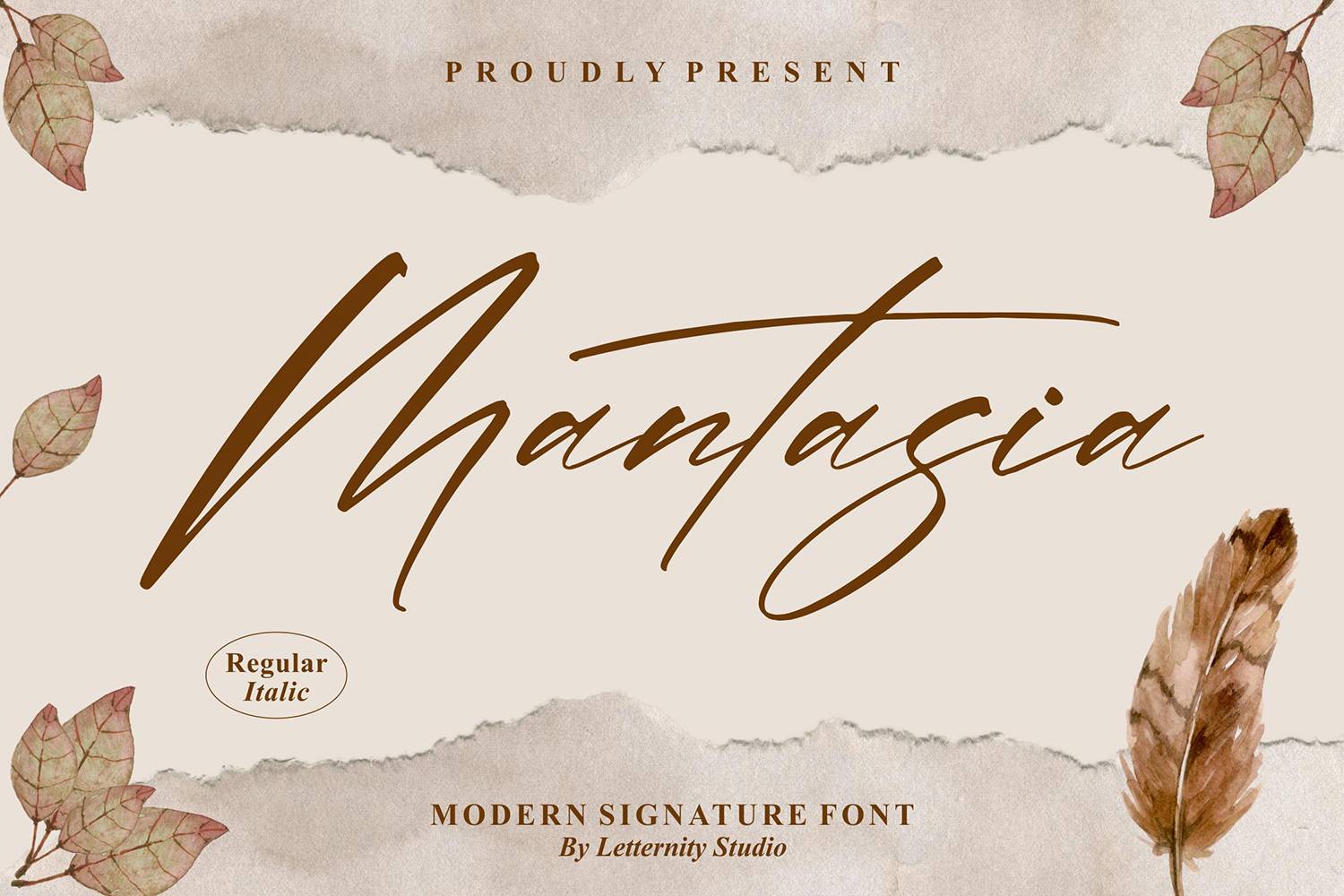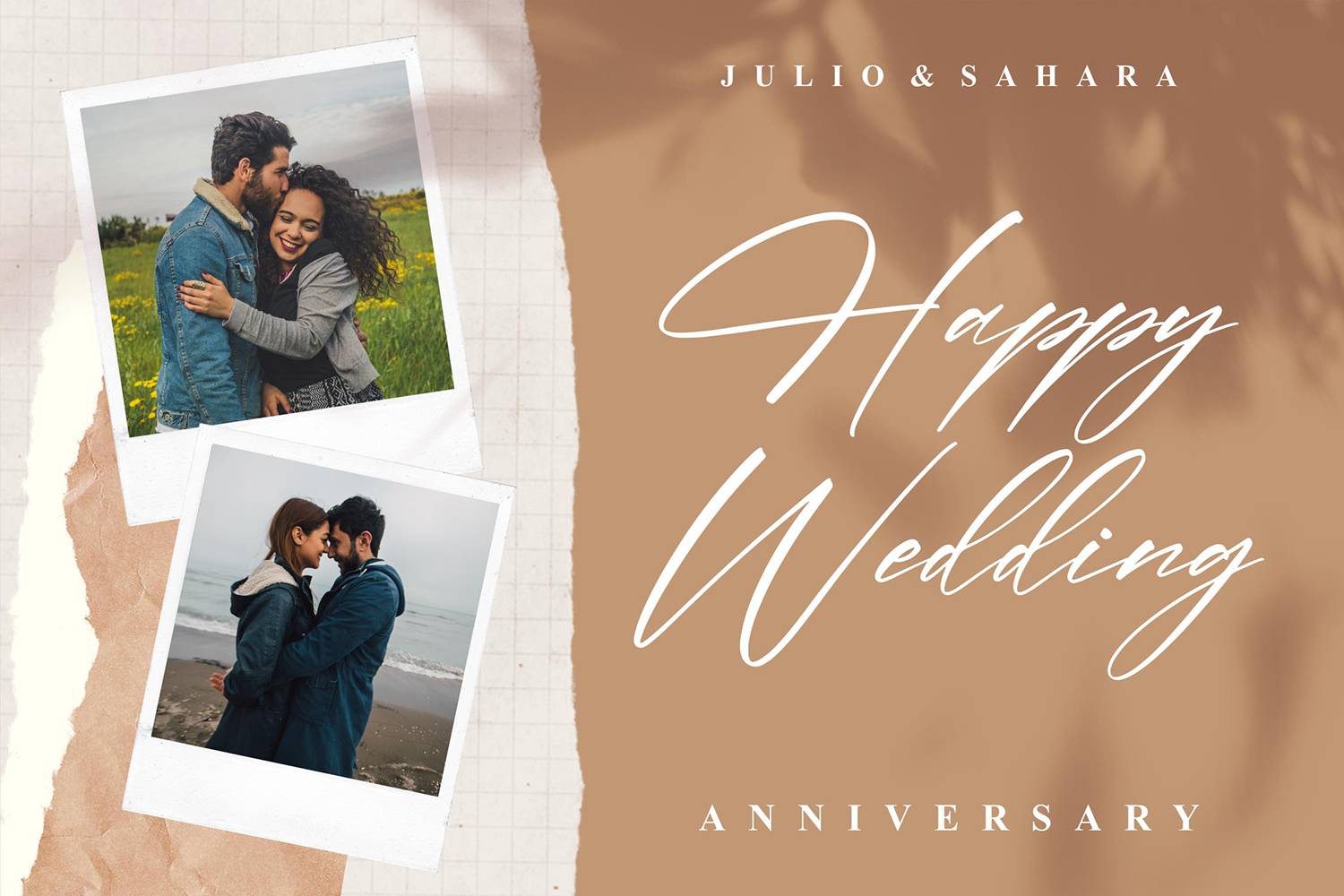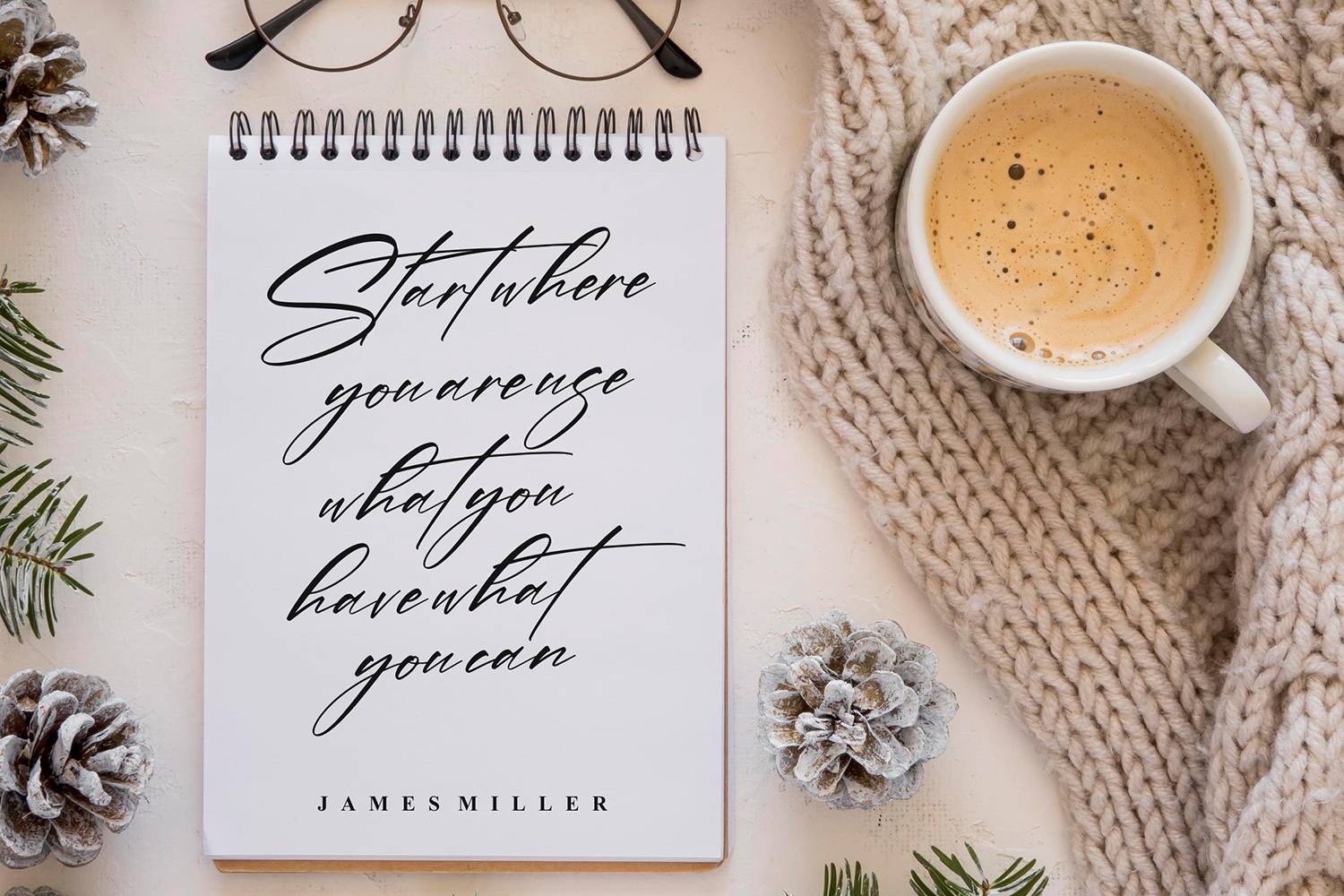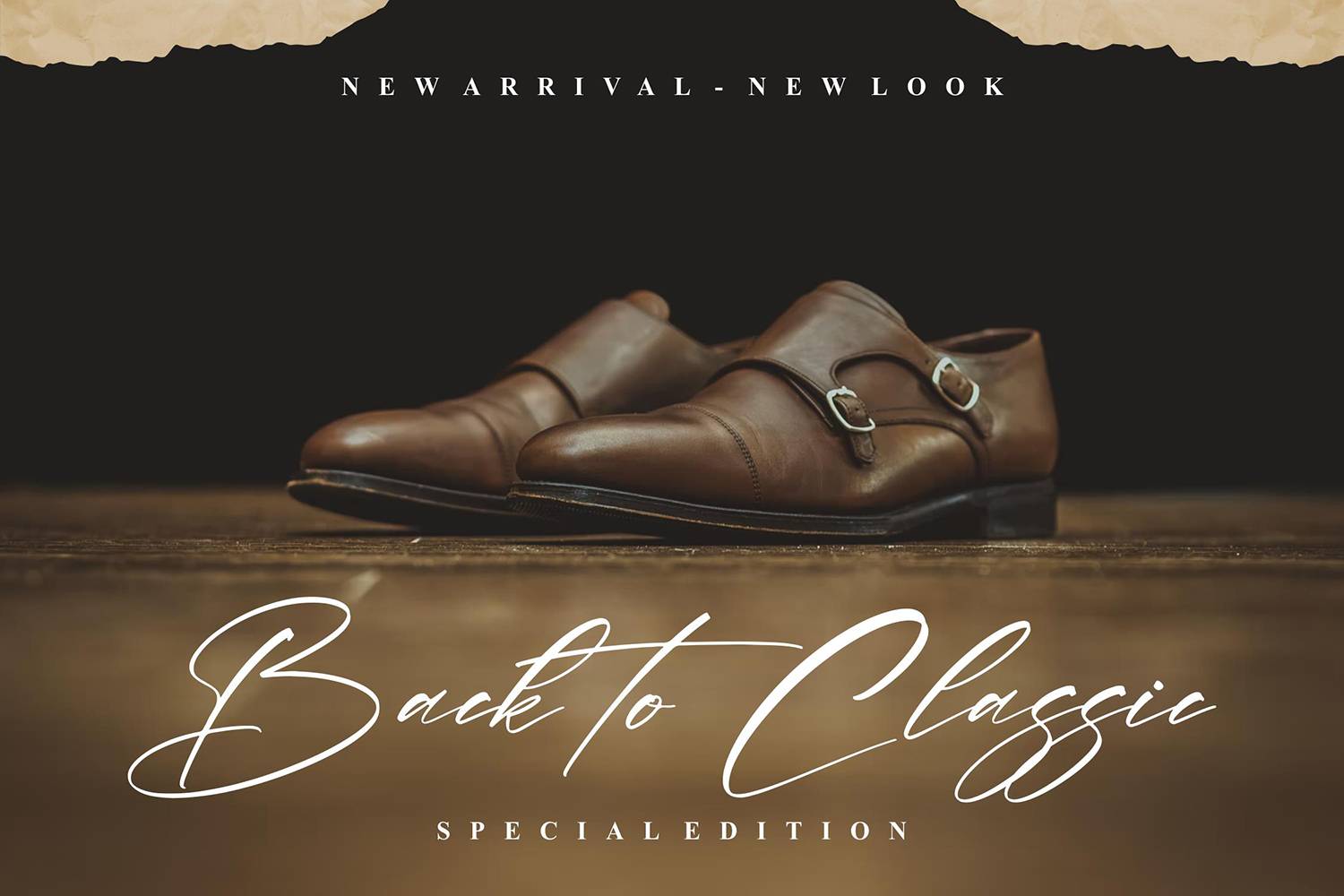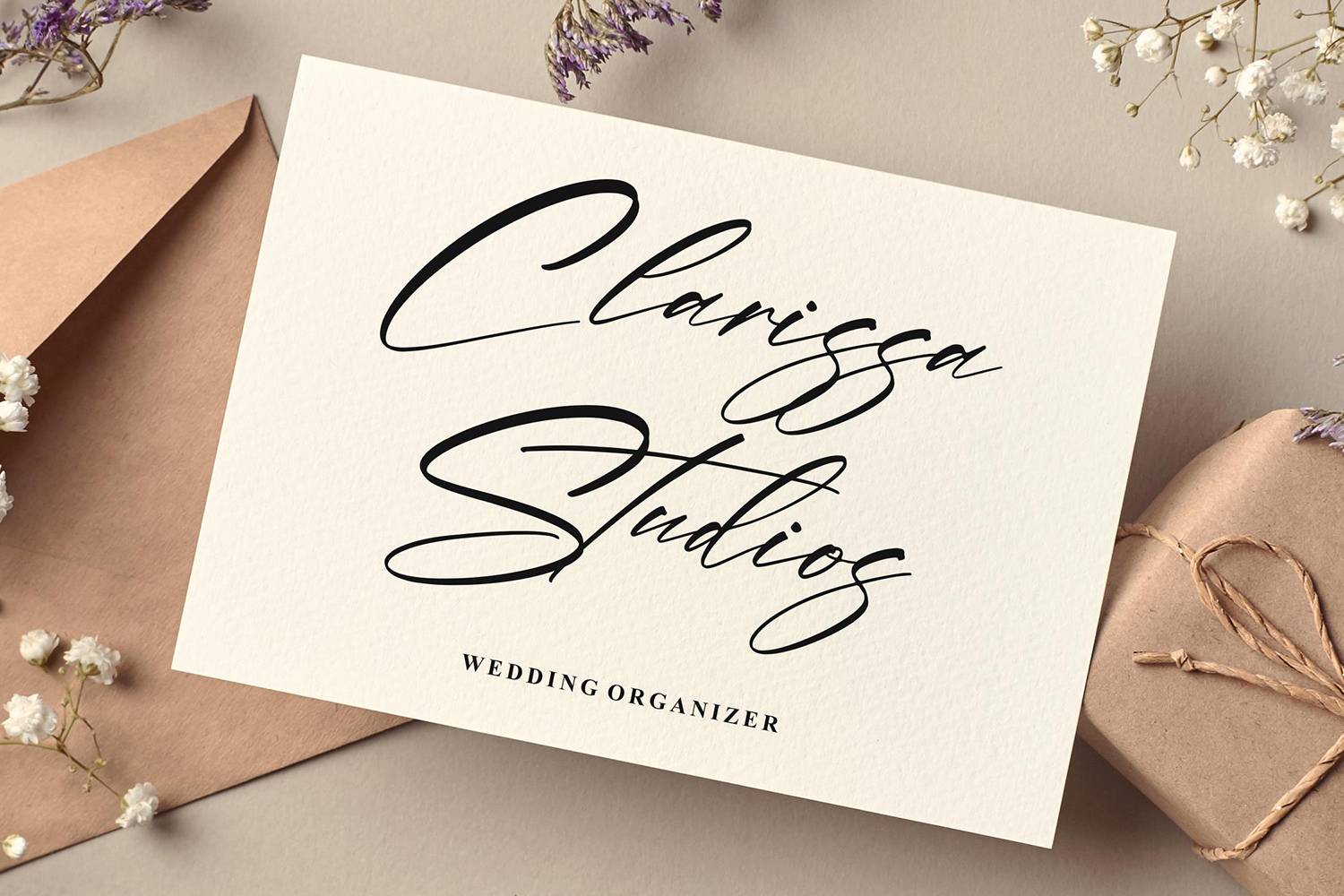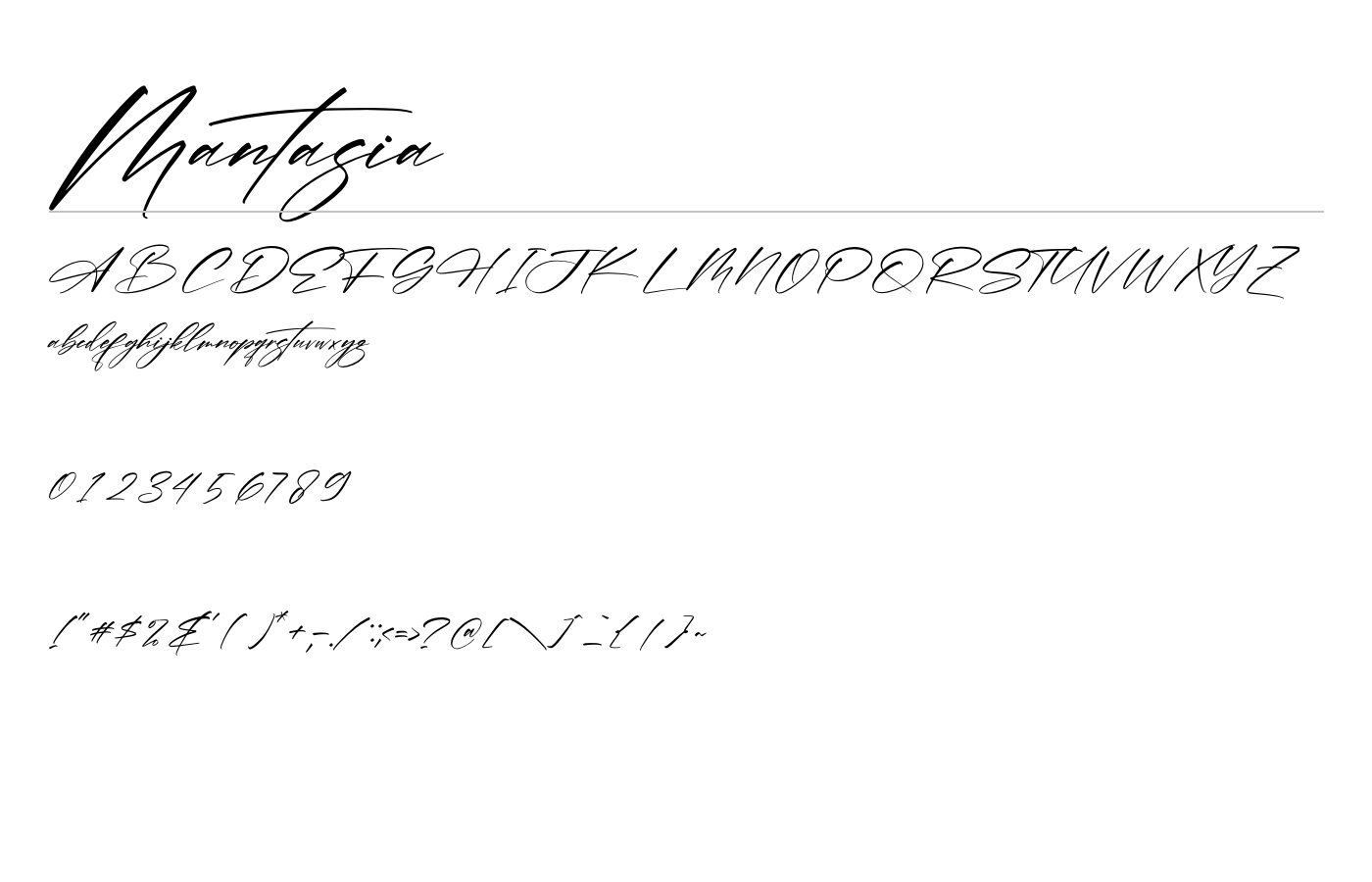
Mantasia is an elegant, slender script font with a graceful, handwritten style that features flowing strokes and delicate curves. Its light weight and refined, airy letterforms make it ideal for upscale branding, invitations, and creative projects that seek a personal yet sophisticated touch. This font works beautifully in headlines and logos where a sense of luxury and artistic flair is desired.
Mantasia Font
About Mantasia Font